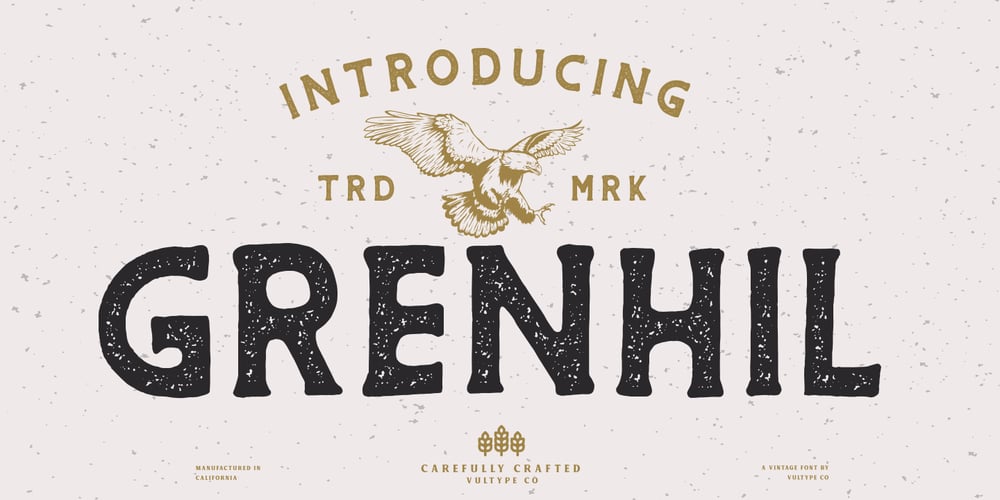
The Grenhil Font Family was designed by Candra Hamdani and published by Vultype Co. The Grenhil contains 2 styles and family package options. The Grenhil is a handmade vintage font. Inspired by modern, vintage, and retro style.This font has 2 styles: Clean and Rough so you can use that style according to the type of project. Additionally, this font has many OpenType features so you can combine each font to be more dynamic.Made carefully to create the perfect texture and suitable for each of your projects also great for Logotype, Branding Design, Logo Design, Digital Lettering Arts, T-Shirt/Apparel.Please note that this family only contains uppercase letters.